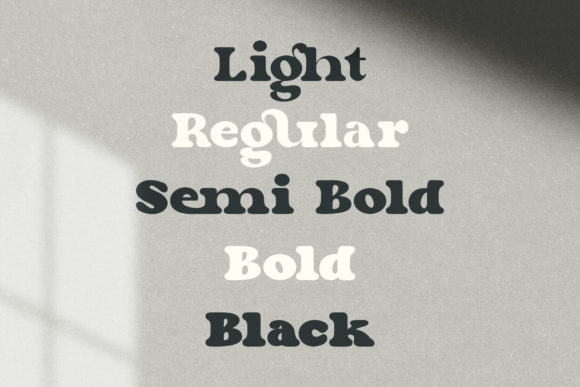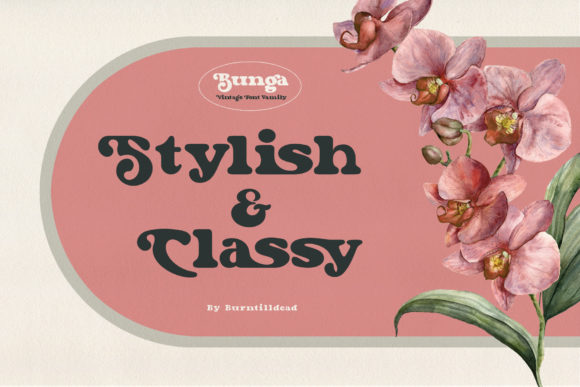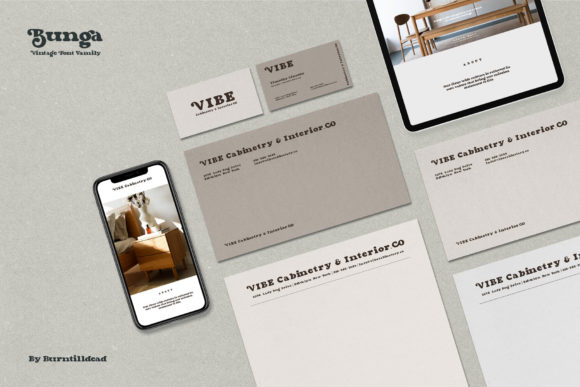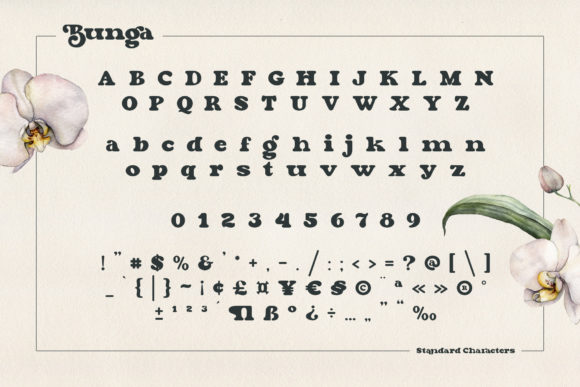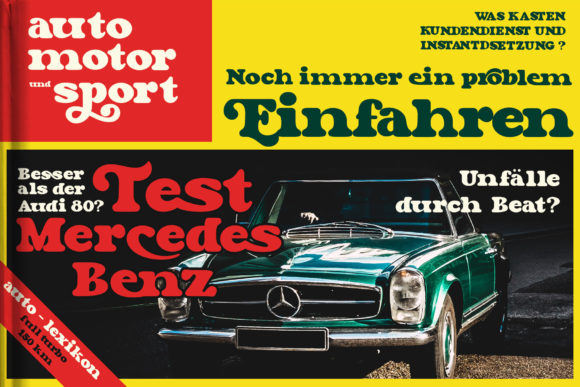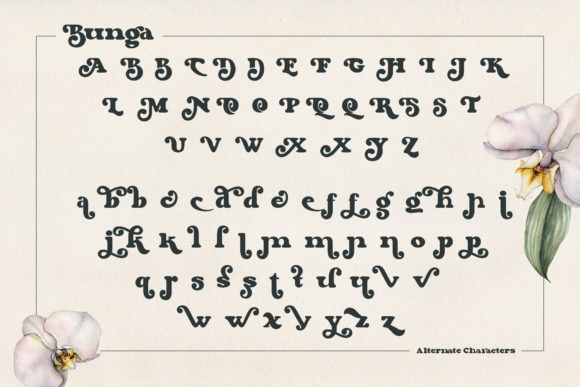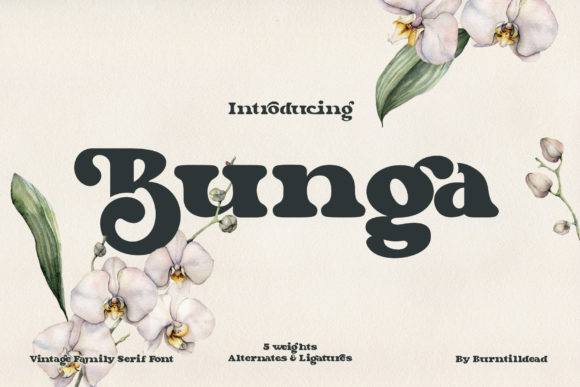
The Designer’s Delight: Bunga Font
I’ll never forget the time I was working on a branding project for a trendy boutique hotel. My client wanted a font that exuded elegance, sophistication, and a dash of modern flair. I scoured the internet, tried out countless fonts, but nothing seemed to fit the bill. That was until I stumbled upon Bunga Font. 💫
This chic and bold serif font has been a game-changer for my design projects, and I’m excited to share my love for it with you. So, let’s dive in and explore what makes Bunga Font so special!
- ✨ Trendiness**: Bunga Font has the perfect amount of trendiness, making it ideal for designs that require a modern touch.
- ✅ PUA Encoding: The font is PUA encoded, which means you can access all the glyphs and swashes with ease!
- 💫 Versatility: Bunga Font is incredibly versatile, making it perfect for a wide range of design projects, from branding and advertising to packaging and more.
While Bunga Font is an excellent choice, there are a few things to keep in mind:
- 🤔 Limited use in body text: Due to its bold nature, Bunga Font might not be the best choice for body text. It’s better suited for headings, titles, and emphasis.
- ⚠️ Requires OpenType features: To get the most out of Bunga Font, you’ll need to use OpenType features, which might require some technical know-how.
Bunga Font was designed with the goal of creating a bold, yet elegant serif font that would cater to the needs of modern designers. The designer aimed to craft a font that would be both trendy and timeless, with a unique blend of classic and contemporary elements.
| Font Name | Bunga Font |
| Author | Burntilldead |
A: PUA (Private Use Area) encoding allows you to access a wide range of glyphs and swashes, giving you more creative control over your designs.
Q: Is Bunga Font suitable for body text?
A: While Bunga Font is a beautiful font, it’s better suited for headings, titles, and emphasis. For body text, consider using a font with better readability.